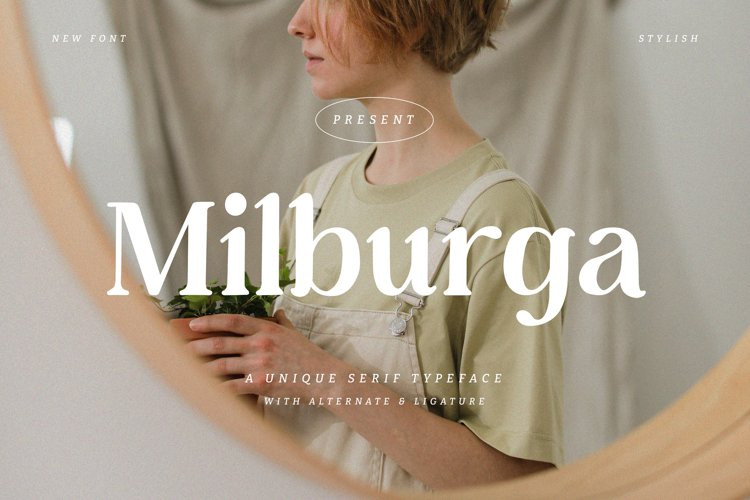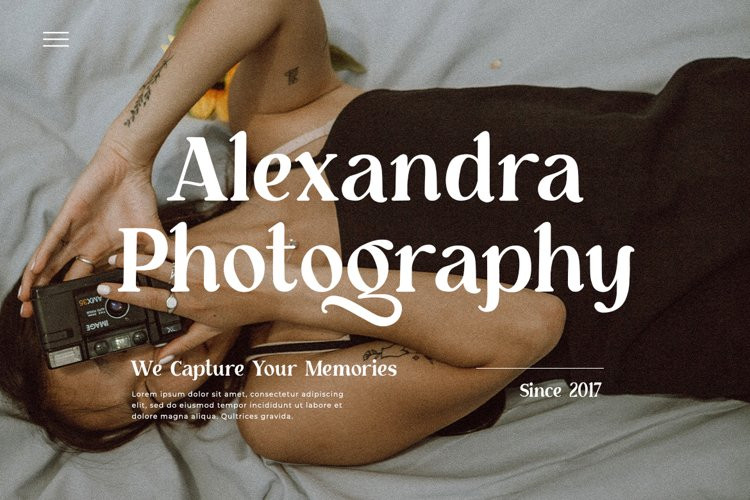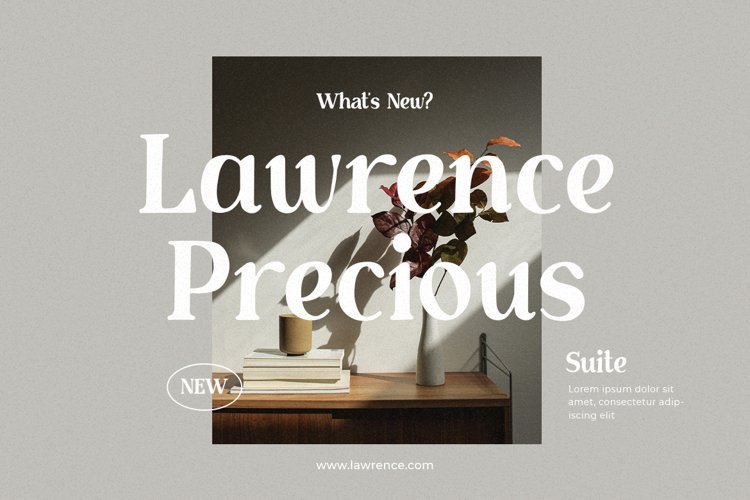
Milburga Font
Milburga FontMilburga is a unique serif font.
This serif font will be the ideal choice for any cool project or great design you wish to develop.